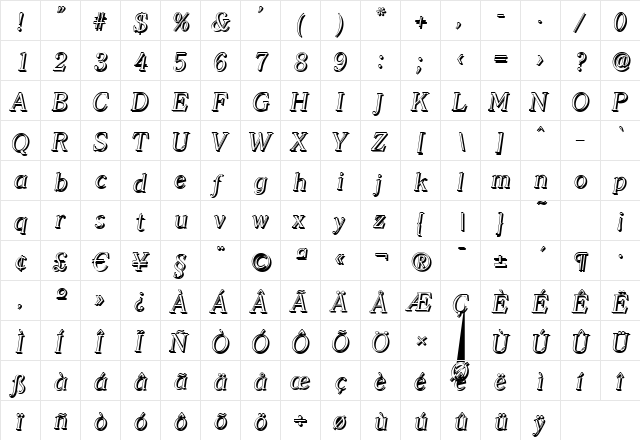
ChristianBeckerShadow-Light Italic Font Preview
Design Context for ChristianBeckerShadow-Light Typeface
ChristianBeckerShadow-Light brings ornamental detail and strong personality to headlines and identities, where visual impact matters more than quiet functionality. Its italic angle brings a sense of urgency and motion to the letterforms. Its slender proportions lend an understated elegance to any composition.
Font Pairing: Pair with a clean neutral sans-serif for body copy to let ChristianBeckerShadow-Light's character lead without overwhelming the composition.
Pro Tip: Use ChristianBeckerShadow-Light exclusively at display sizes — it was designed to be seen, not read at length. Let a neutral companion handle body copy.